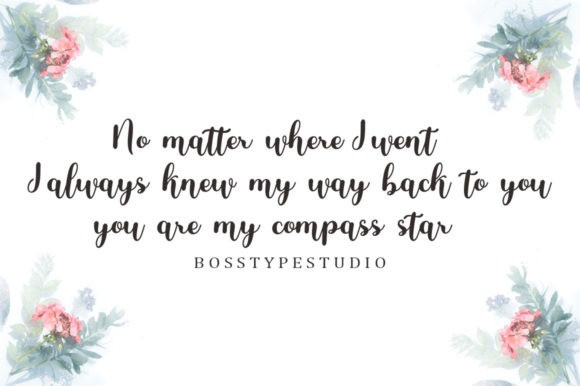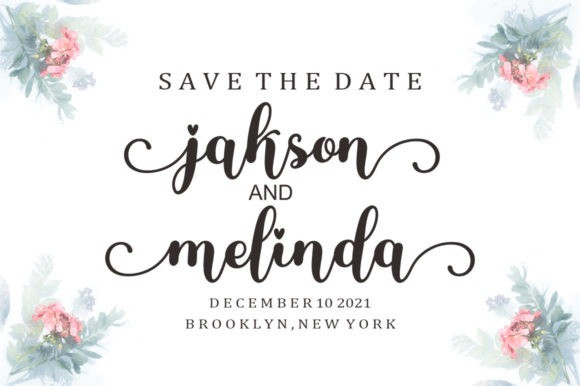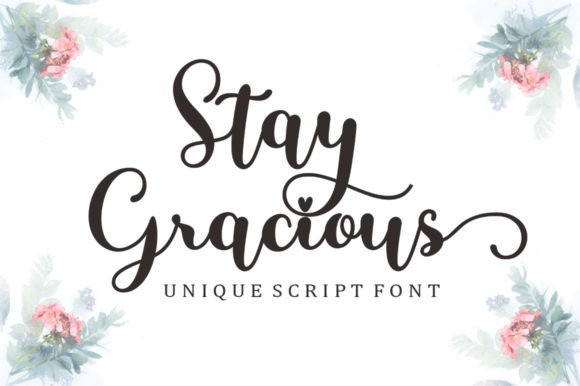
Stay Gracious Font
Stay Gracious Script Font is a lovely script font featuring charming, playful characters that seem to dance along the baseline. This font is PUA encoded which means you can access all of the glyphs and swashes with ease!